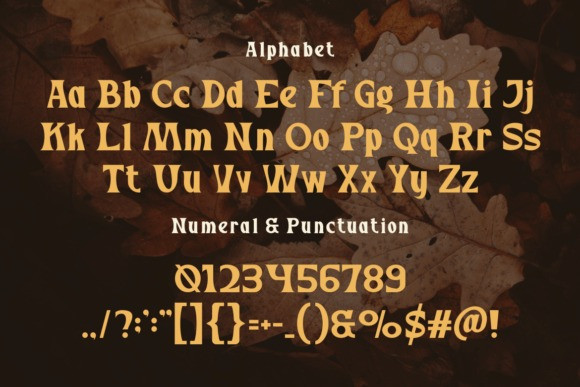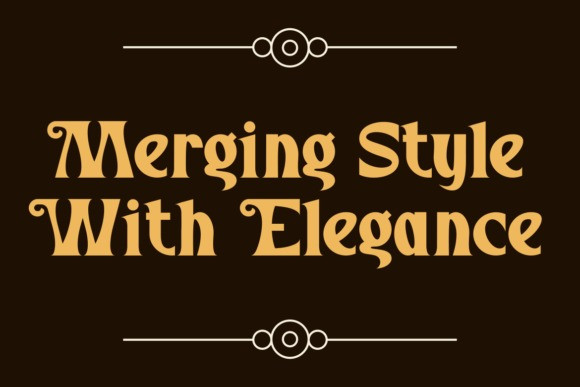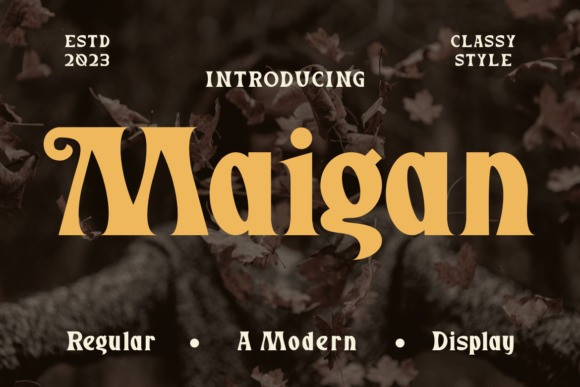
Maigan Font
Maigan Font is an elegant display font. You can use this bold display typeface to create logos, t-shirt printing, esports, and other design projects.